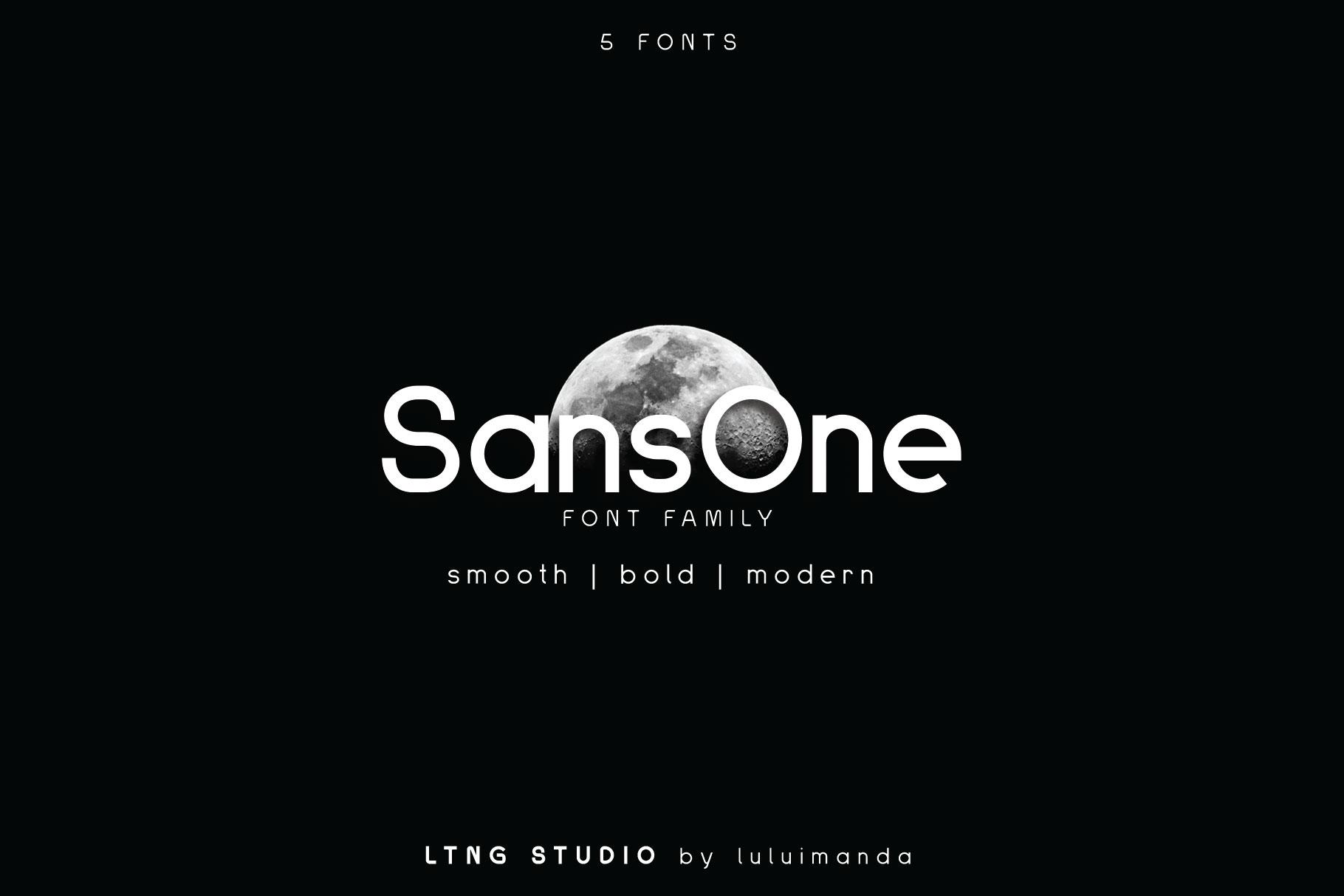
Sans One is a smooth, bold, and modern sans serif font; this font has a smooth shape and is perfect for editorials and more! This font is modern and clean, giving it a ton of flexibility and versatility.